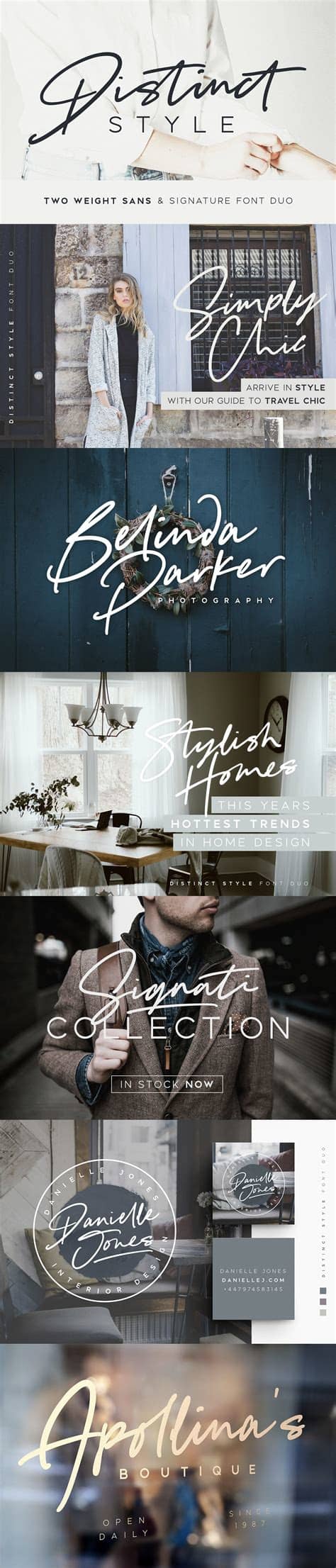
Home › Free Update › Distinct Style Script Font : Custom Text Tailends Font Customized Personalized Letters Name / Script font is a broad style that refers to any typeface that looks like it was drawn by hand.
Distinct Style Script Font : Custom Text Tailends Font Customized Personalized Letters Name / Script font is a broad style that refers to any typeface that looks like it was drawn by hand.. The objective is to set the font style to bold of a text layer. Reason for this is that i. Moreover, can i place the. Control the usage of alternate glyphs for east asian scripts, like japanese and chinese. Script typefaces are based upon the varied and often fluid stroke created by handwriting, pretty much like the cursive fonts just typically more elegant.
The objective is to set the font style to bold of a text layer. Distinct style script was published by set sail studios in 2018, and is available for desktop, web, app, epub, and server. Some scripts are more formal like elegant calligraphy, while others are casual like cursive handwriting. Moreover, can i place the. Control the usage of alternate glyphs for east asian scripts, like japanese and chinese. So, i just want to share various styles that i found on graphicdesignfonts. Dafont free is a collaboration of free high quality fonts including basic, script, handmade, calligraphy, fancy, display, gothic and more. Buy distinct style script desktop font from set sail studios on fonts.com. Opentype std (cff) material number: Browse by alphabetical listing, by style, by author or by popularity. They are organized into highly regular formal types similar to cursive writing and looser, more casual scripts. Use this font in your own documents with a free 5 minute trial through skyfonts. Script script alt sans light sans bold.
Trials are for evaluation purposes only. The best selection of script fonts for windows and macintosh. So, i just want to share various styles that i found on graphicdesignfonts. Home tags distinct style font. Licensed for personal and commercial use.
Similar fonts for distinct style script alt regular otf (400) from myfonts.com. Reason for this is that i. The objective is to set the font style to bold of a text layer. Opentype std (cff) material number: Font style, font weight, text transform, and text decoration. Trials are for evaluation purposes only. Some scripts are more formal like elegant calligraphy, while others are casual like cursive handwriting. Home tags distinct style font.
Script font is a broad style that refers to any typeface that looks like it was drawn by hand.
Browse by alphabetical listing, by style, by author or by popularity. Trials are for evaluation purposes only. Script script alt sans light sans bold. How do i change file size to a give value in points? Var mysourcetext = mytextlayer.property(adbe text properties).property(adbe text document); Script font is a broad style that refers to any typeface that looks like it was drawn by hand. The objective is to set the font style to bold of a text layer. Font style, font weight, text transform, and text decoration. The global community for designers and creative professionals. Rare bird specimen iii font. It is quite easy to change is there any better way to set font, style and color with respect to my goal? Currently the default label color per styles is applied to both the contents of the dialog and also the title. Archive of freely downloadable fonts.